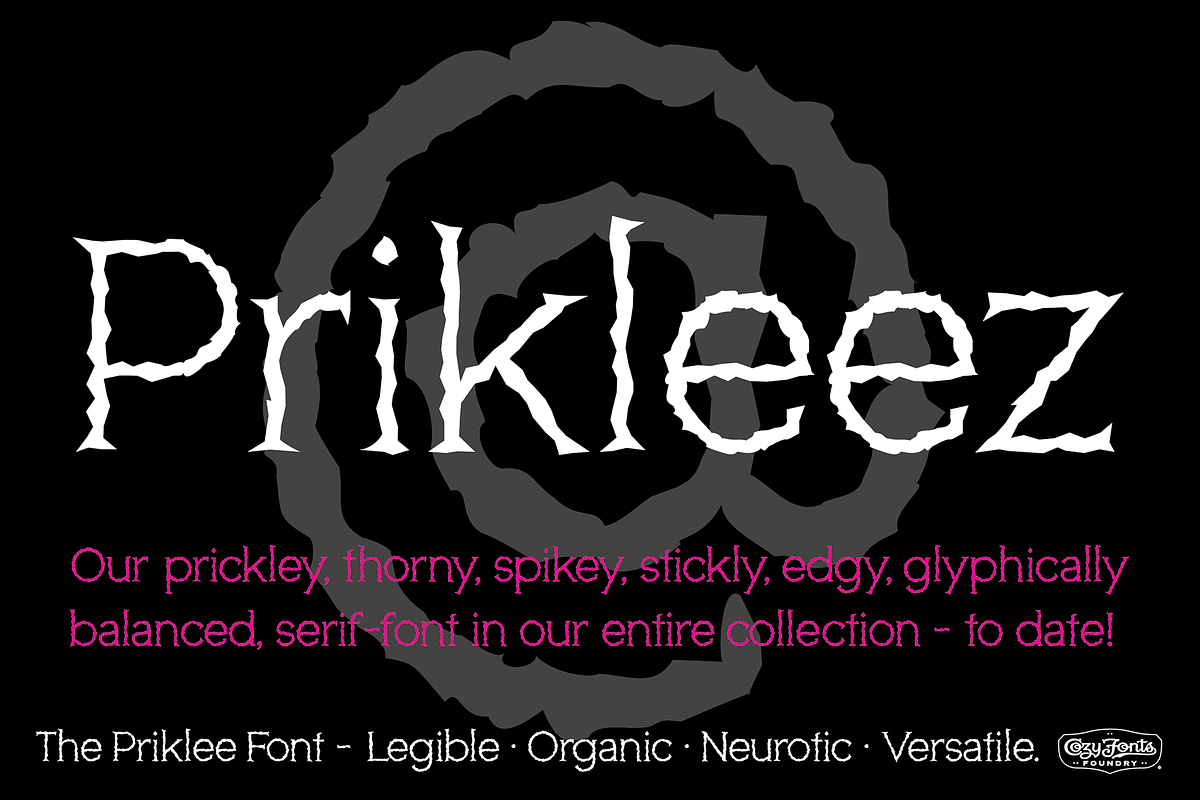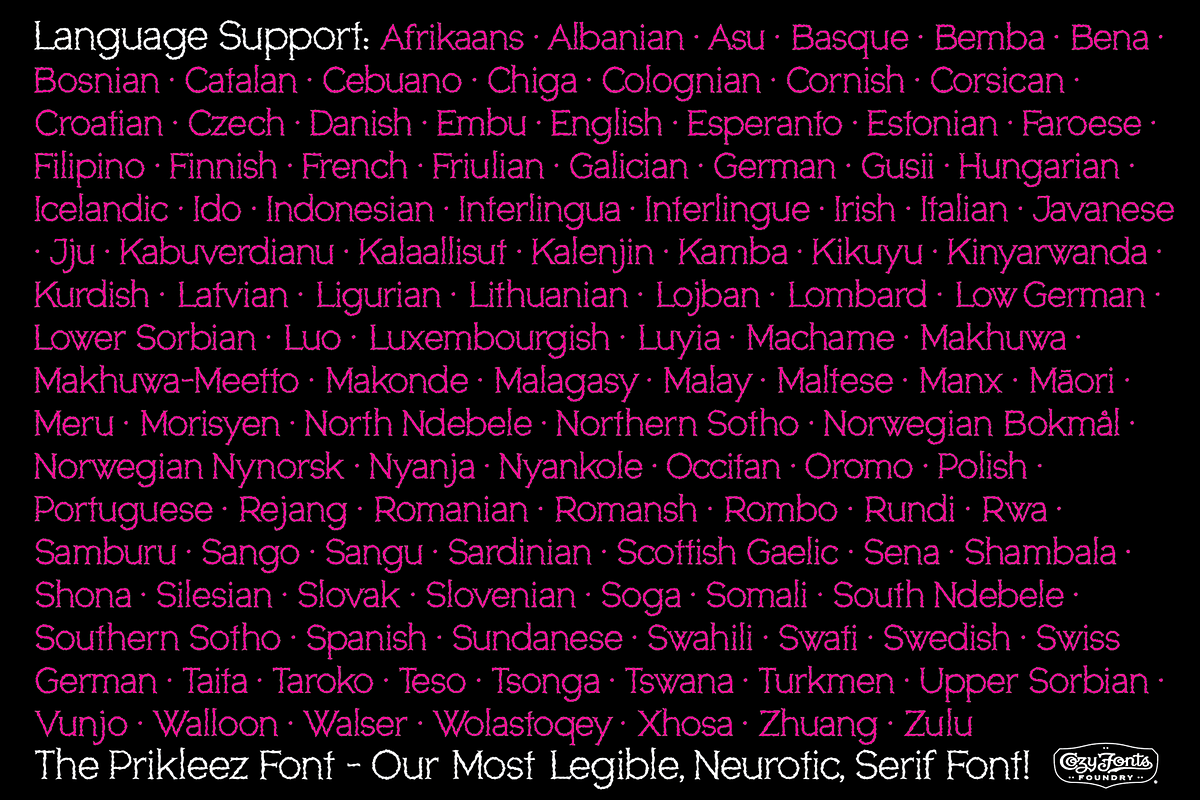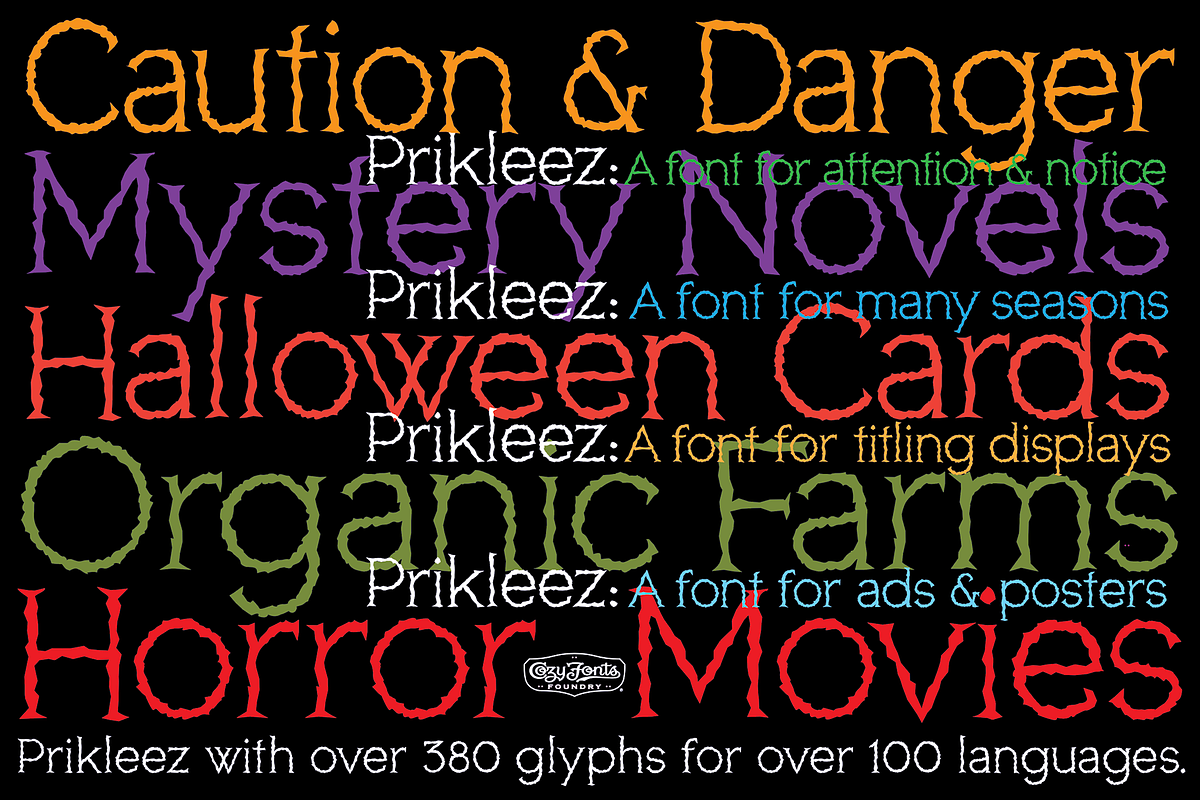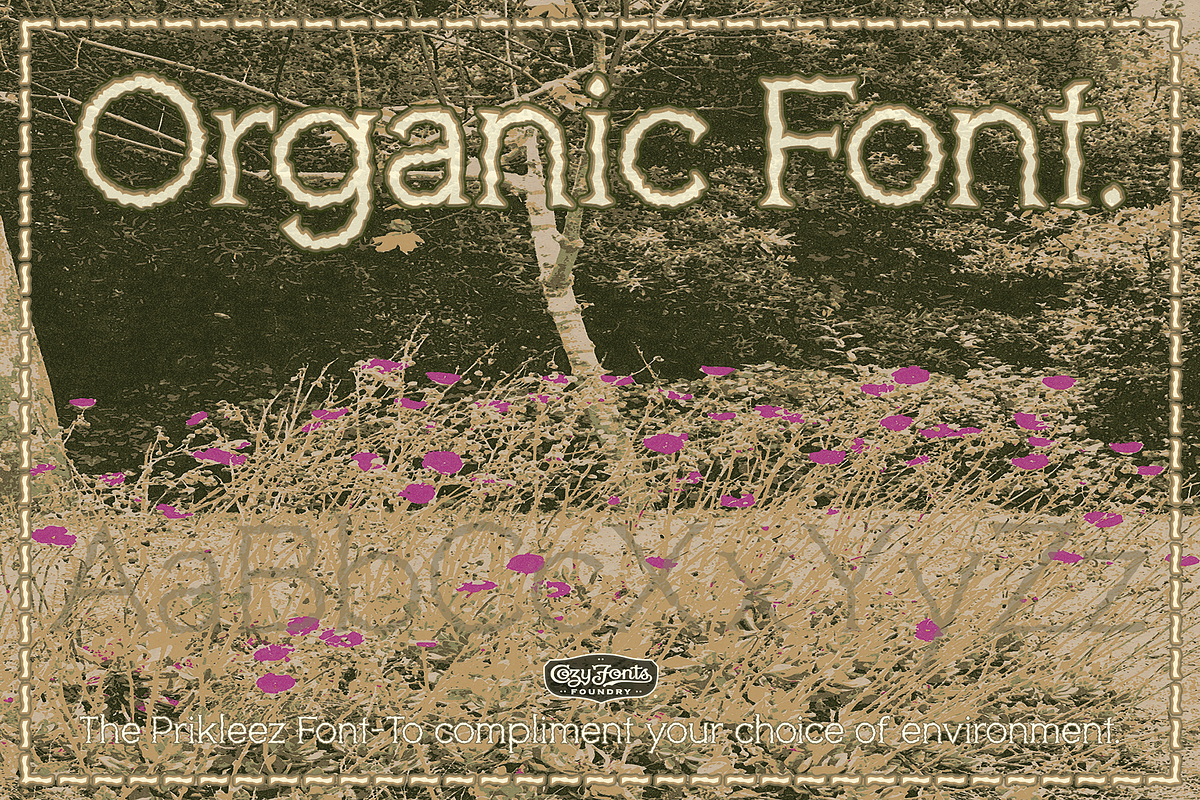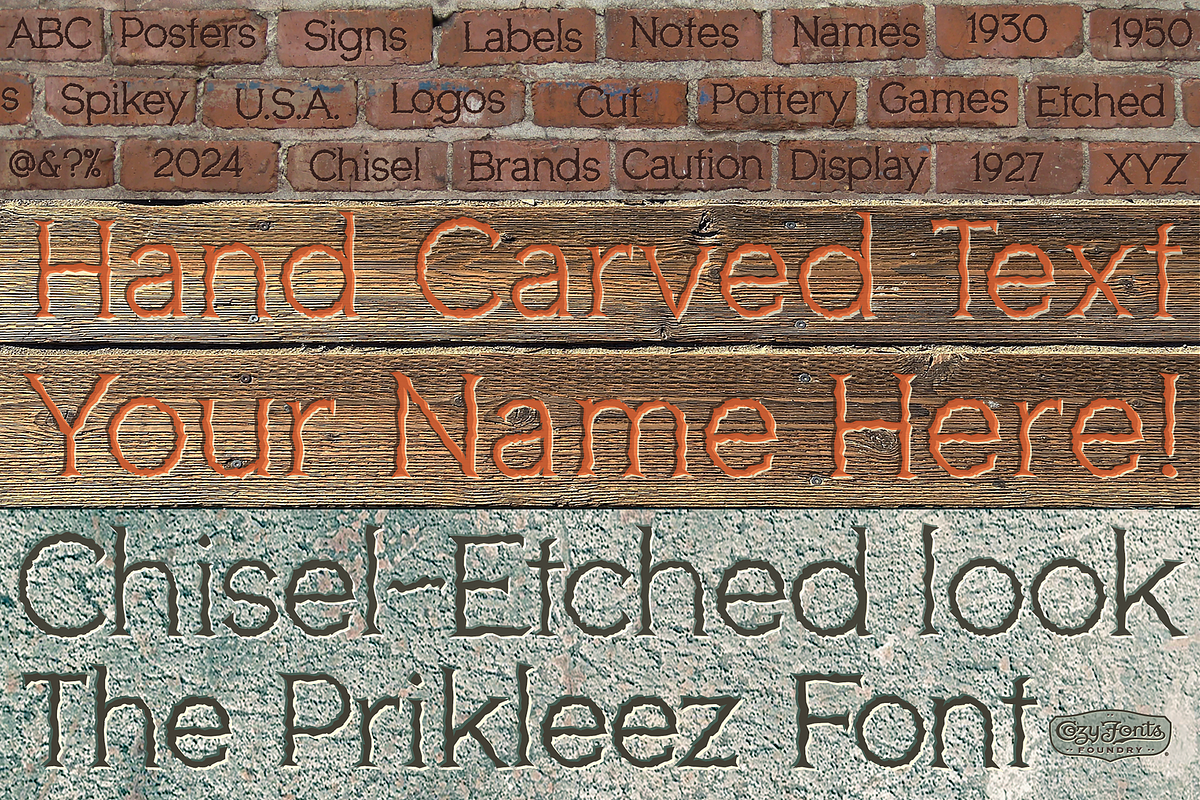
Prikleez
Prikleez Font is the 26th font family by Designer/Illustrator Tom Nikosey for his Cozyfonts Foundry. Prikleez says what this font appears to be, prickly and spiney, yet each letter holds together with exceptional clarity and when set as headlines, phrases, single letters or logos, its legibility is quite amazing. It was crafted using the overall influence from his earlier Thomasen Font Family. Prikleez stands alone! There are many uses for this font and the possibilities are endless. Whether creating graphics for gaming, branding, signage, posters for Halloween events or Rock Concerts or Danger Signs, Prikleez versatility and legibility for a neurotic appearance will fit the application smoothly. Great for punk rock titles, etc.